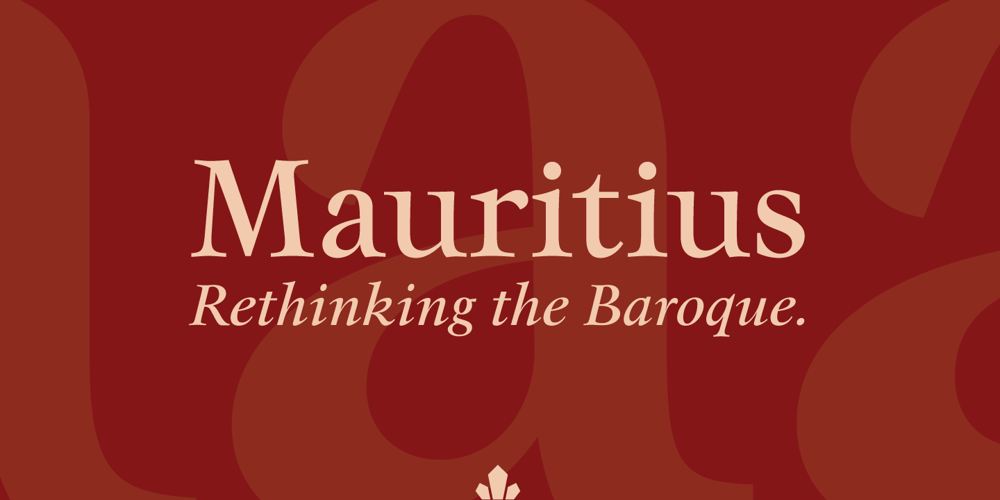
Mauritius
Mauritius font
Mauritius Font Family was designed by Georg Trump, Patrick Griffin, Kevin Allan King and published by Canada Type. Mauritius contains 9 styles and family package options. Ten years or so after his unique treatment of Garalde design with Trump Mediaeval, Georg Trump took on the transitional genre with Mauritius, which was to be his last typeface. He started working on it in 1965. The Stuttgart-based Weber foundry published a pamphlet previewing it under the name Barock-Antiqua in 1967, then announced the availability of the metal types (a roman, a bold and an italic) a year later. The global printing industry was already in third gear with cold type technology, so there weren’t that many takers, and Weber closed its doors after more than 140 years in business. Subsequently, Trump’s swan song was unfairly overlooked by typography historians and practitioners. It never made it to film technology or scalable fonts. Thus, one of the most original text faces ever made, done by one of the most influential German type designers of the 20th century, was buried under decades of multiple technology shifts and fading records. The metal cuts of Mauritius seem to have been rushed in Weber’s desperation to stay afloat. So the only impressions left of the metal type, the sole records remaining of this design, show substantial problems. Some can be attributed to technological limitations, but some issues in colour, precision and fitting are also quite apparent, particularly in Mauritius Kursiv, the italic metal cut. This digital version is the result of obsessing over a great designer’s final type design effort, and trying to understand the reasons behind its vanishing from typography’s collective mind. While that understanding remains for the most part elusive, the creative and technical work done on these fonts produced very concrete results. All the apparent issues in the metal types were resolved, the design was expanded into a larger family of three weights and two widths, and plenty of 21st century bells and whistles were added. For the full background story, design analysis, details, features, specimens and print tests, consult the PDF available in the Gallery section of this page.